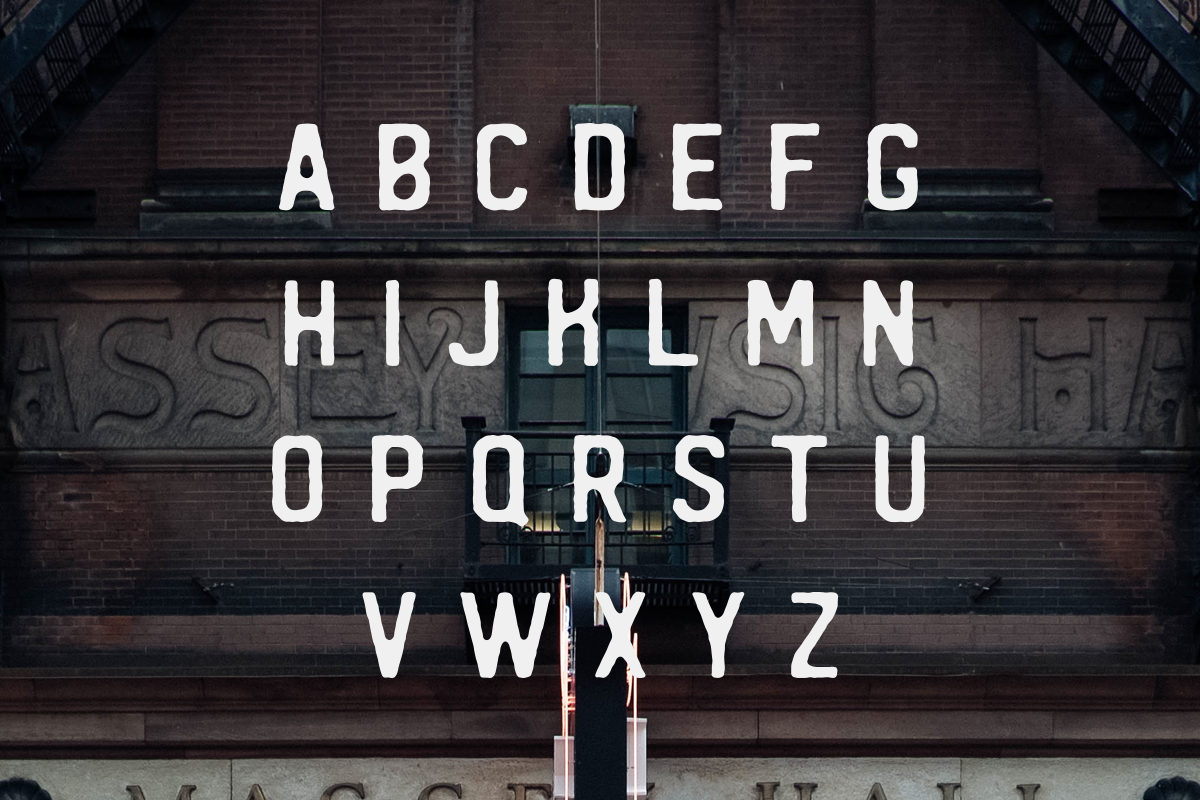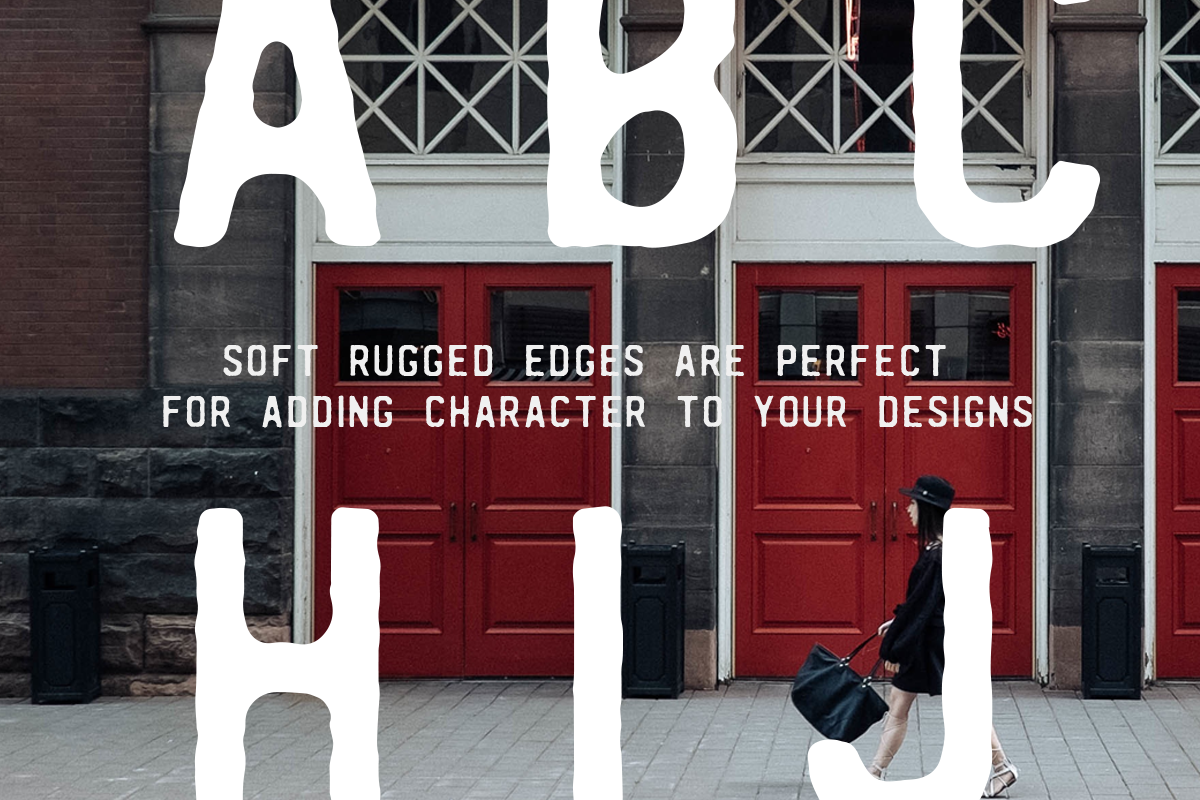
REGRESS - A hand crafted typeface
REGRESS - A hand crafted typeface by Mark Richardson is a font selected for branding, posters, packaging, typography.
Why REGRESS - A hand crafted typeface is worth a look
REGRESS - A hand crafted typeface by Mark Richardson fits naturally into Branding, posters, packaging, typography.